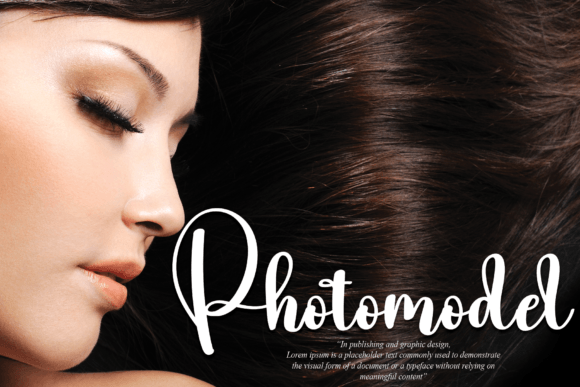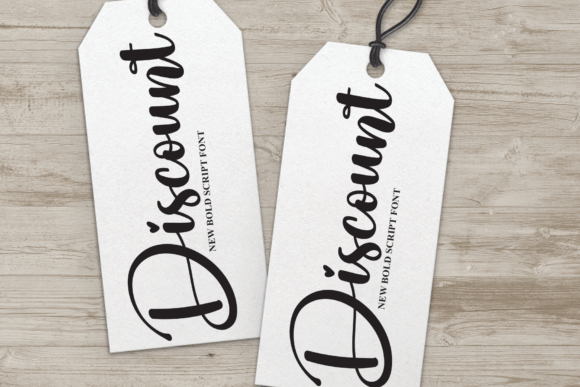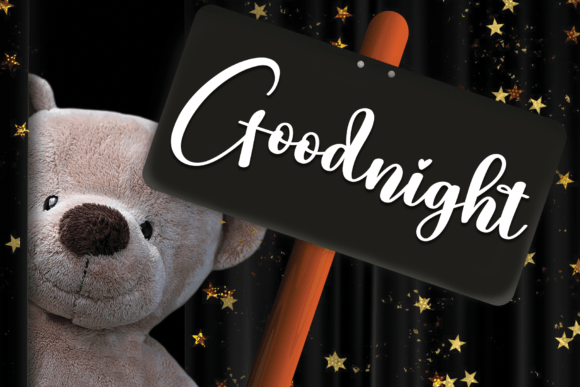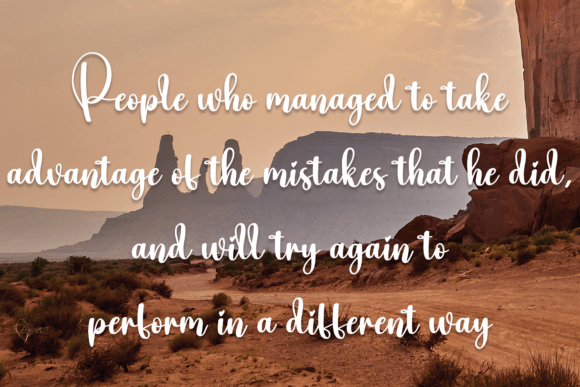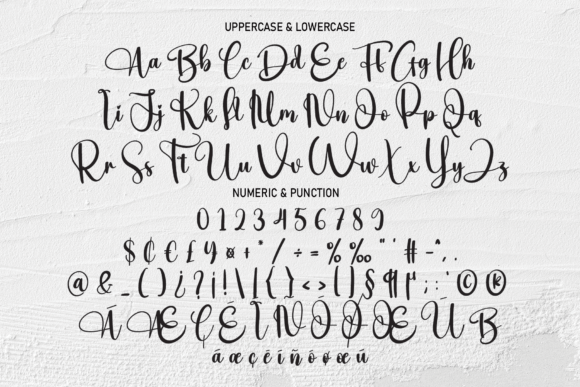
Introducing Breath Font: Elevate Your Designs with Elegant Handwritten Style
In the world of design, fonts play a crucial role in conveying the tone and personality of a project. If you’re looking for a font that adds a touch of elegance and sophistication, look no further than Breath Font. This beautiful font features the latest style letters that are perfect for a wide range of applications, from wall displays and wedding invitations to social media post logos and product packaging.
What is Breath Font?
Breath Font is a stunning handwritten font that boasts a unique and elegant style. Its letters are carefully crafted to provide a sense of fluidity and movement, making it perfect for designs that require a personal touch. Whether you’re a designer, crafter, or DIY enthusiast, Breath Font is an excellent addition to your font collection.
The versatility of Breath Font makes it an ideal choice for a wide range of design projects. Here are some of the ways you can use this beautiful font:
- Wall Displays: Create stunning wall art with Breath Font. Its elegant letters are perfect for quotes, poems, or any other text that you want to display.
- Wedding Invitations: Add a touch of romance to your wedding invitations with Breath Font. Its beautiful letters will make your invitations stand out and set the tone for your special day.
- Social Media Post Logos: Use Breath Font to create eye-catching social media post logos that will grab the attention of your followers.
- Advertisements: Breath Font is perfect for advertisements that require a touch of elegance and sophistication.
- Product Packaging: Add a personal touch to your product packaging with Breath Font. Its beautiful letters will make your products stand out on store shelves.
- Product Designs: Use Breath Font to create stunning product designs that showcase your brand’s personality.
- Labels: Create beautiful labels with Breath Font. Its elegant letters are perfect for labeling products, files, or any other item that requires a personal touch.
- Photography: Use Breath Font to add watermarks to your photos. Its subtle style won’t distract from your images, but will add a touch of elegance.
- Invitations: Breath Font is perfect for creating invitations for parties, events, or any other occasion that requires a personal touch.
- Stationery: Add a touch of elegance to your stationery with Breath Font. Its beautiful letters are perfect for letters, cards, or any other written communication.
Why Choose Breath Font?
There are many reasons why Breath Font stands out from other fonts. Here are a few:
- Unique Style: Breath Font features a unique and elegant style that will make your designs stand out.
- Handwritten Touch: Its handwritten letters add a personal touch to your designs, making them more relatable and engaging.
- Versatility: Breath Font is perfect for a wide range of design projects, from wall displays to product packaging.
- Elegance: Its elegant letters are perfect for designs that require a touch of sophistication.
Tips for Using Breath Font
Here are a few tips for using Breath Font:
- Pair with Other Fonts: Experiment with pairing Breath Font with other fonts to create a unique and interesting design.
- Use Different Colors: Try using different colors to add depth and interest to your designs.
- Experiment with Sizes: Don’t be afraid to experiment with different font sizes to create visual interest.